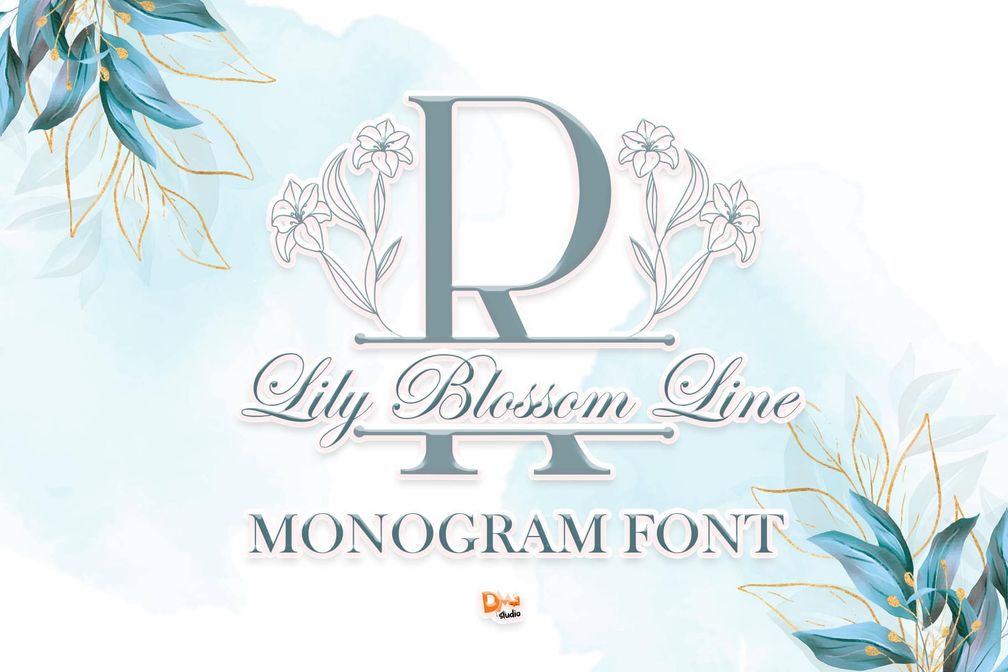
Lily Blossom Line Monogram
Lily Blossom Line Monogram – Elegant & Floral Monogram Font
Lily Blossom Line Monogram is a sophisticated monogram font featuring delicate lily-inspired floral line art. This beautifully crafted typeface is perfect for wedding invitations, luxury branding, personalized stationery, boutique packaging, and artistic monogram designs. Its refined botanical details bring a graceful and timeless elegance to any project.
• Lily-Inspired Floral Line Art: Each letter is adorned with intricate lily blossoms, adding a delicate and artistic touch.
• Minimalist & Ornamental Aesthetic: A seamless blend of floral beauty and classic monogram styling.